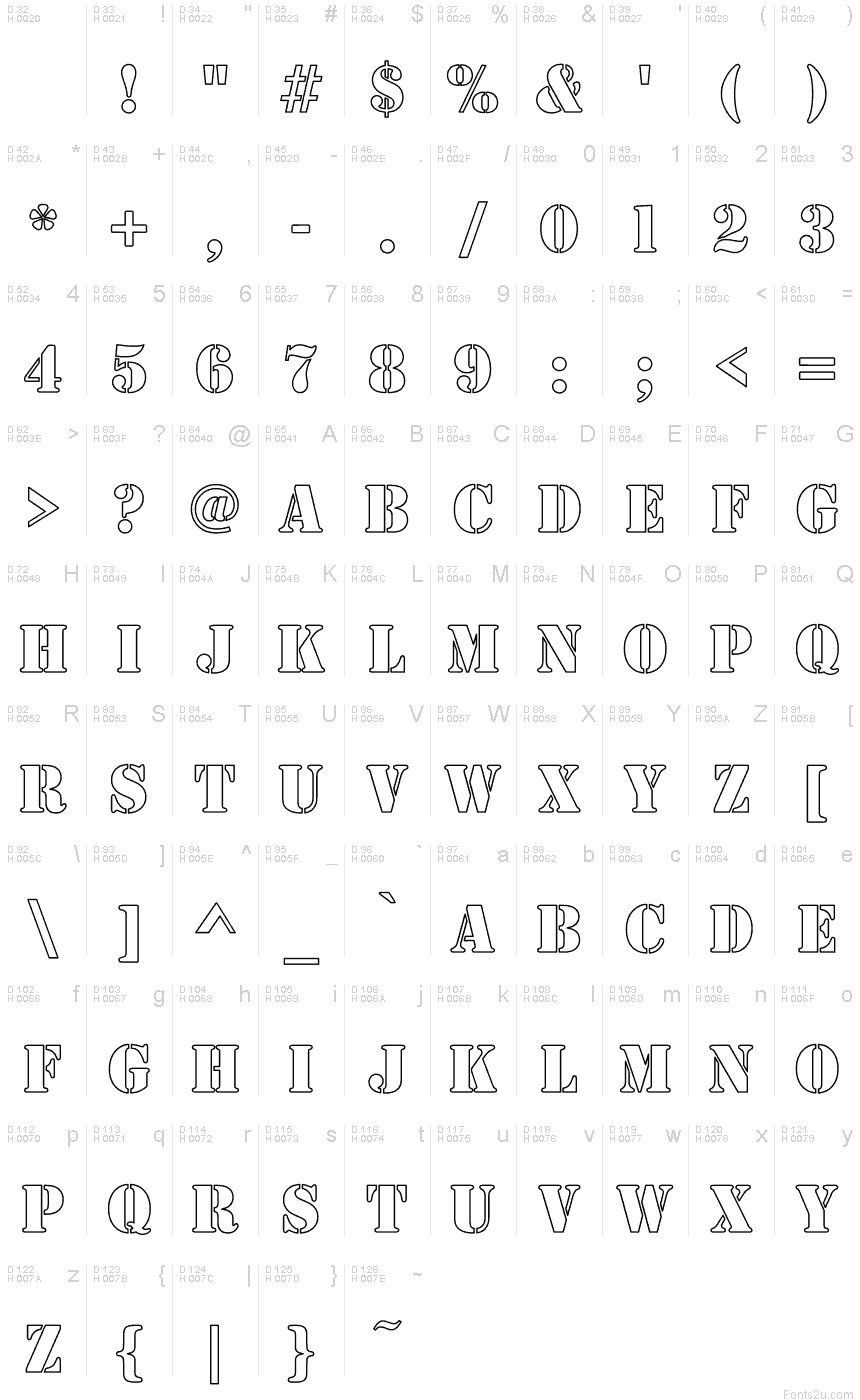
Army Hollow
Army Hollow font by Alltype is a free outlined serif typeface with bold, regimented letterforms that feel like they’ve marched straight off a vintage recruitment poster. Thick, sturdy contours wrap around open interiors, giving every word a strong presence without feeling heavy or over-inked. The crisp, uniform strokes and squared details bring a classic military and varsity energy that’s easy to read at a distance.
Using Army Hollow, headlines instantly pick up that rugged, tactical vibe that suits game titles, event posters, boot camp flyers, sports banners, patches, and themed social graphics. The hollow structure also invites creative color fills, textures, and gradients for custom badges or logos. This free font works beautifully when paired with a simple sans-serif for supporting text, letting Army Hollow handle the commanding, attention-grabbing lines.